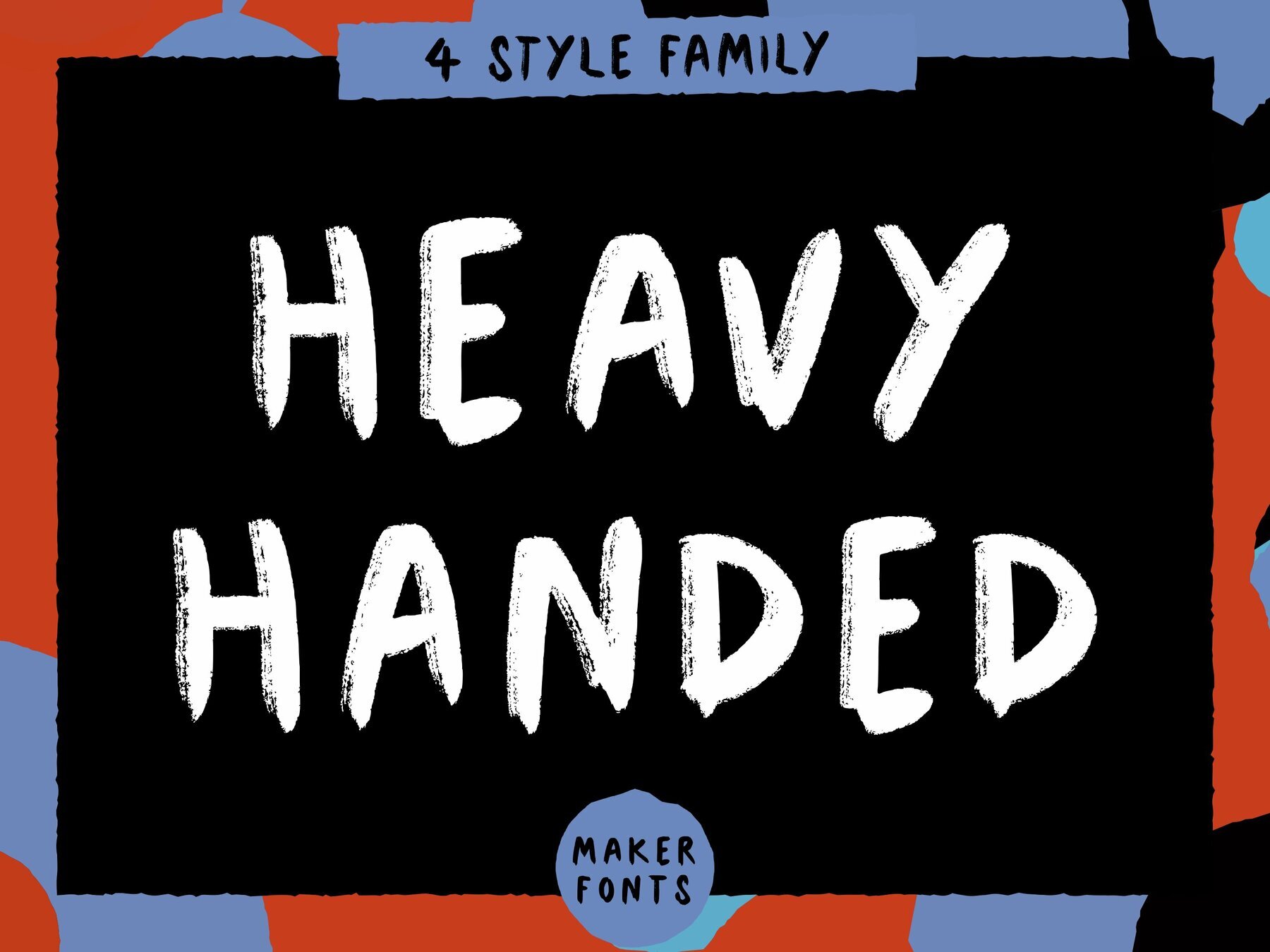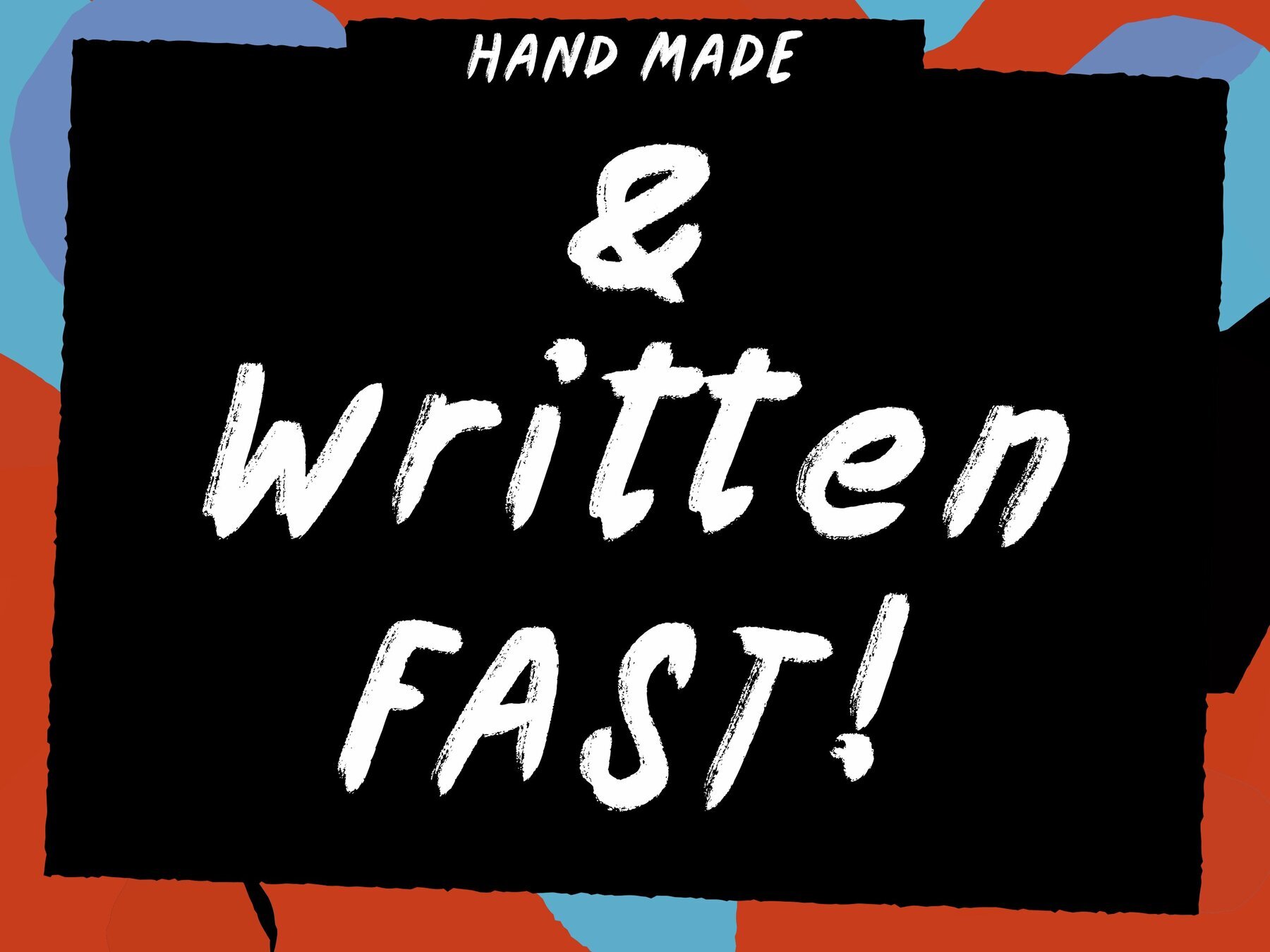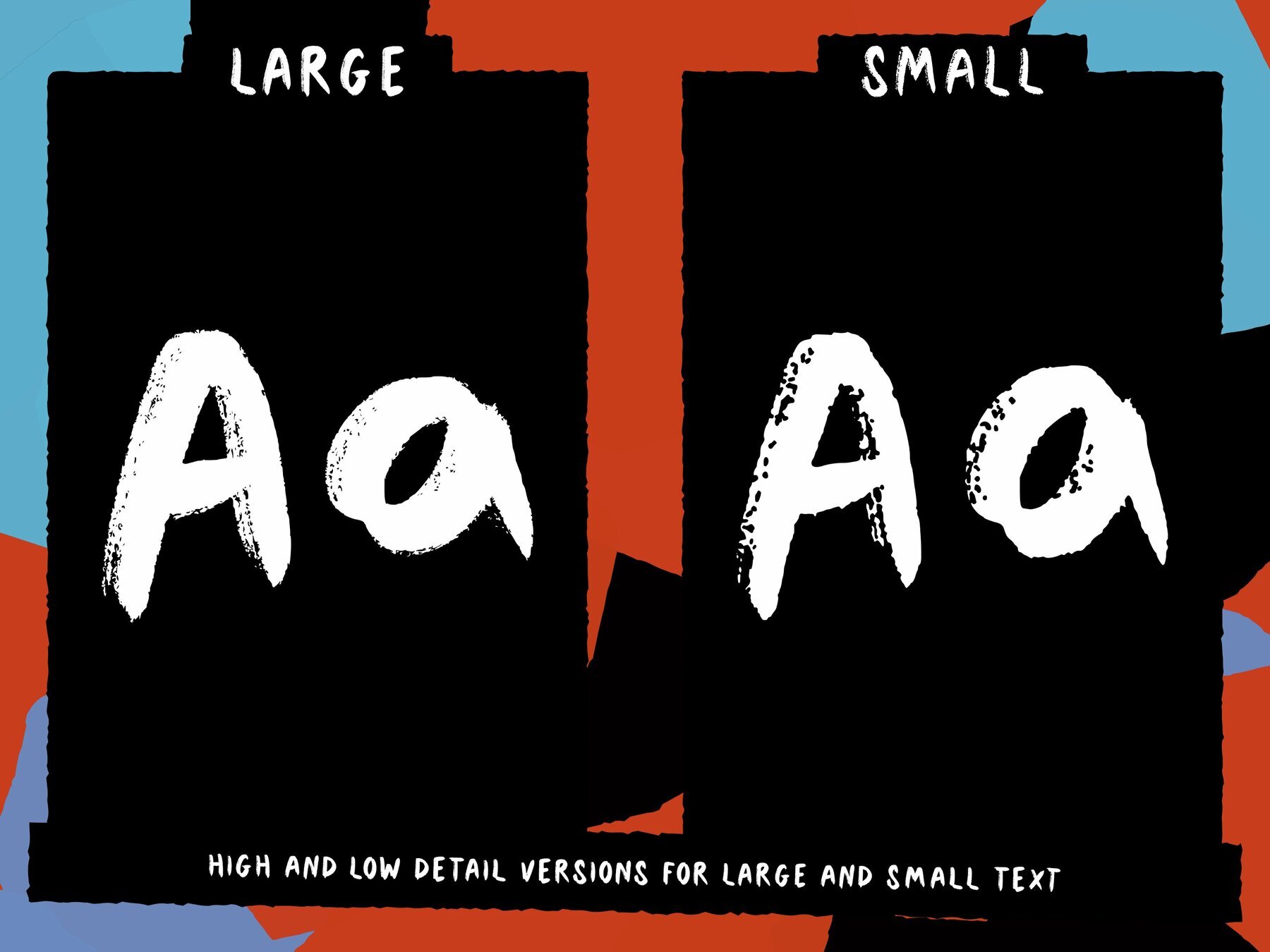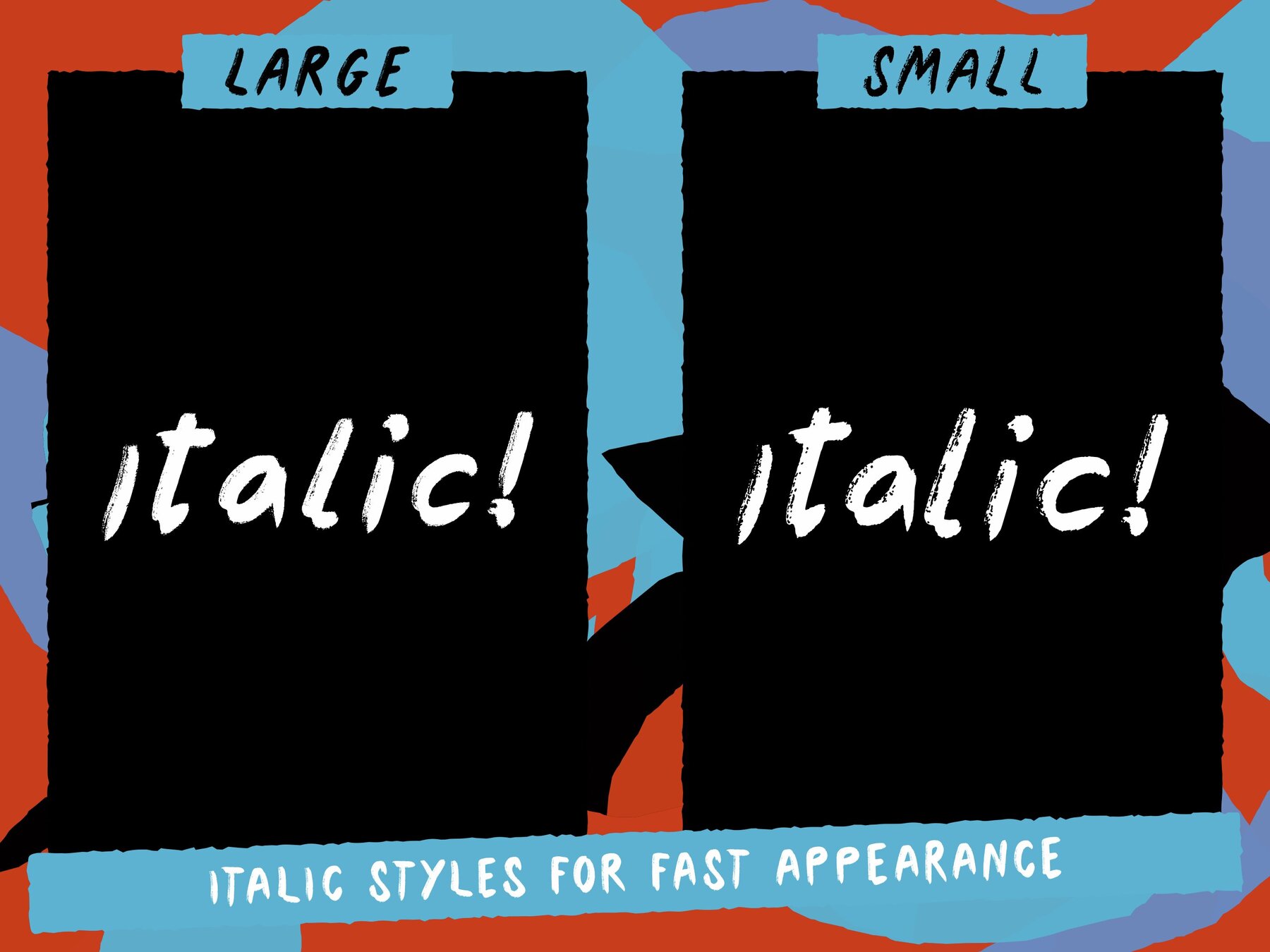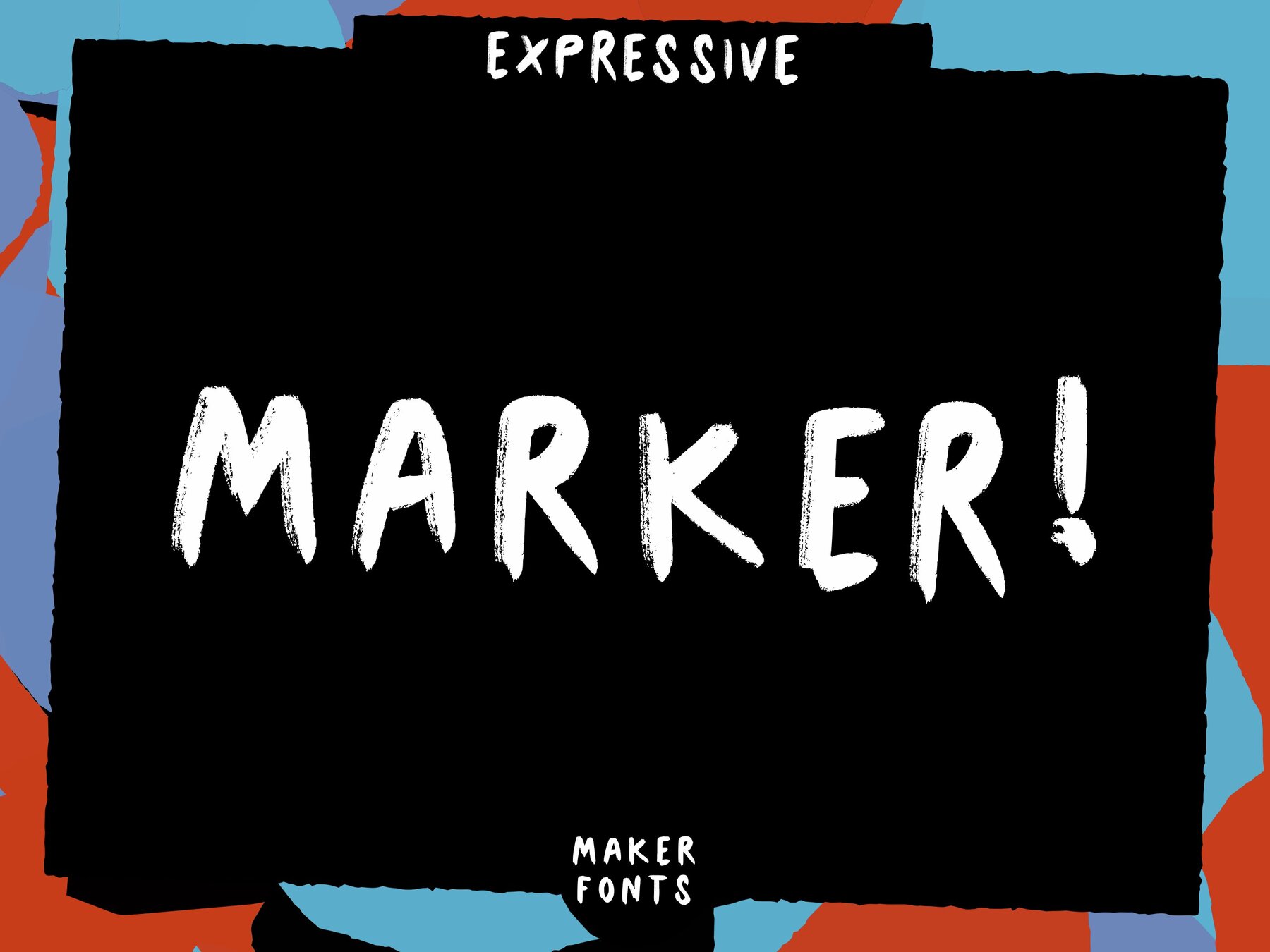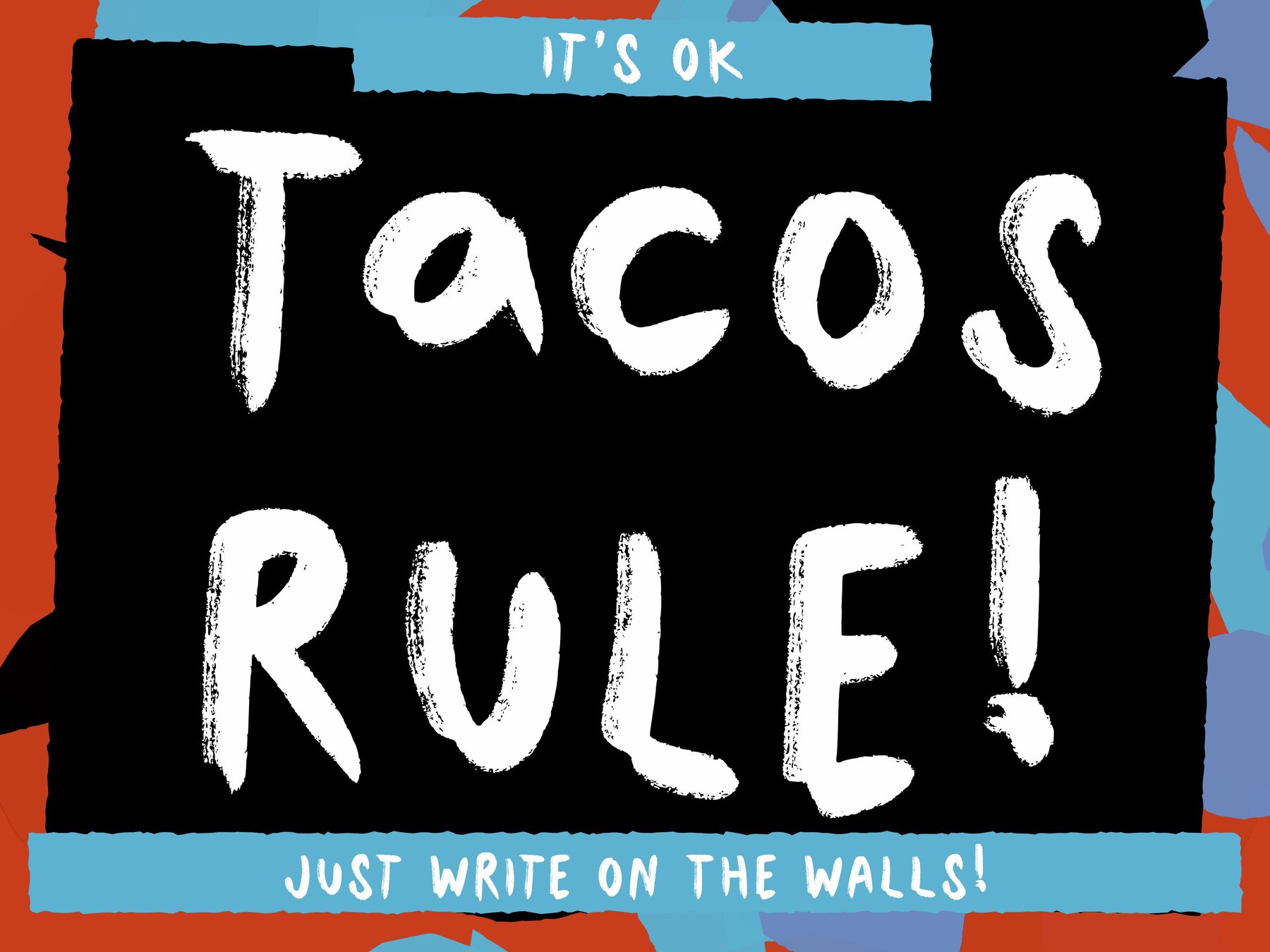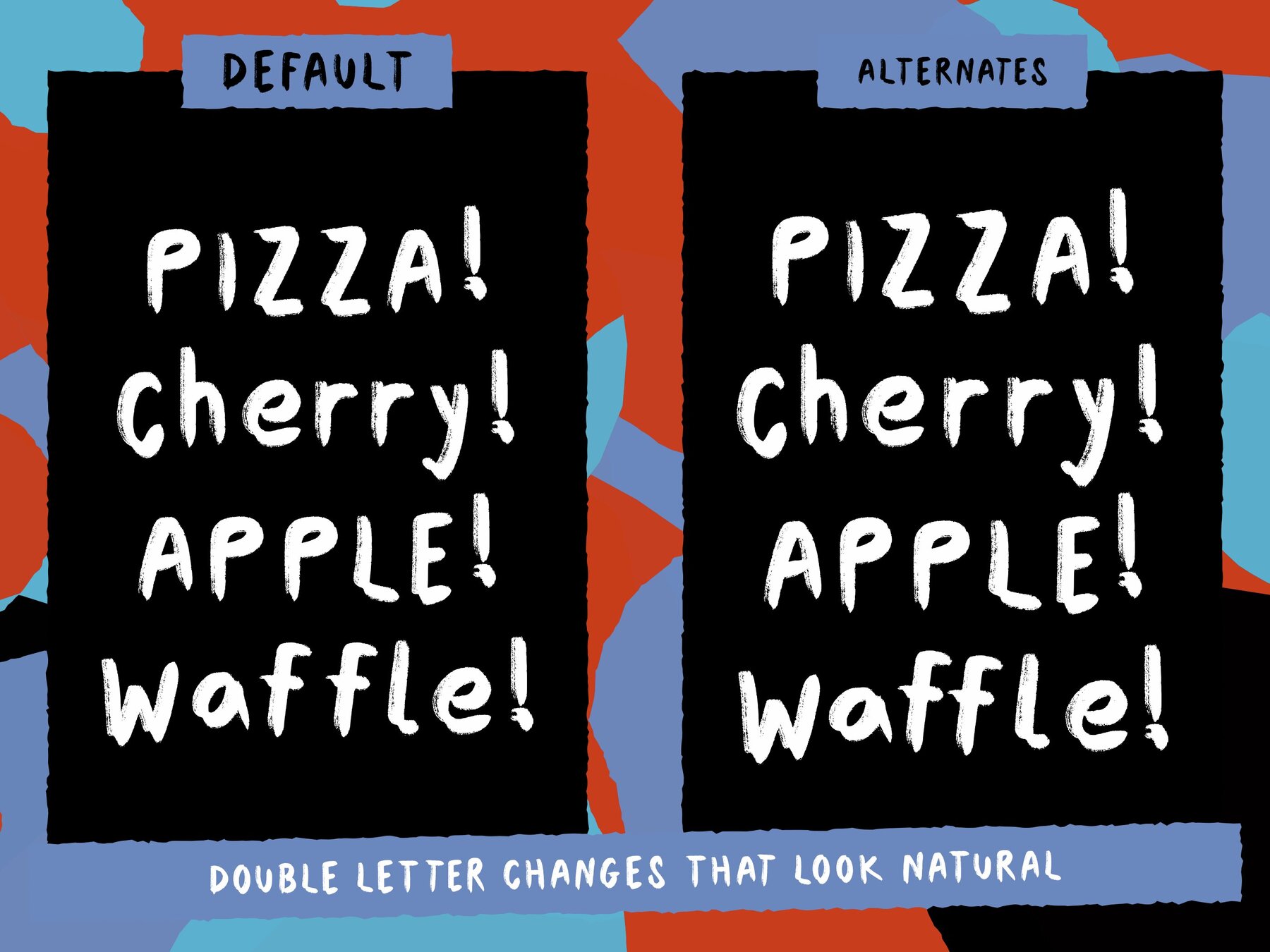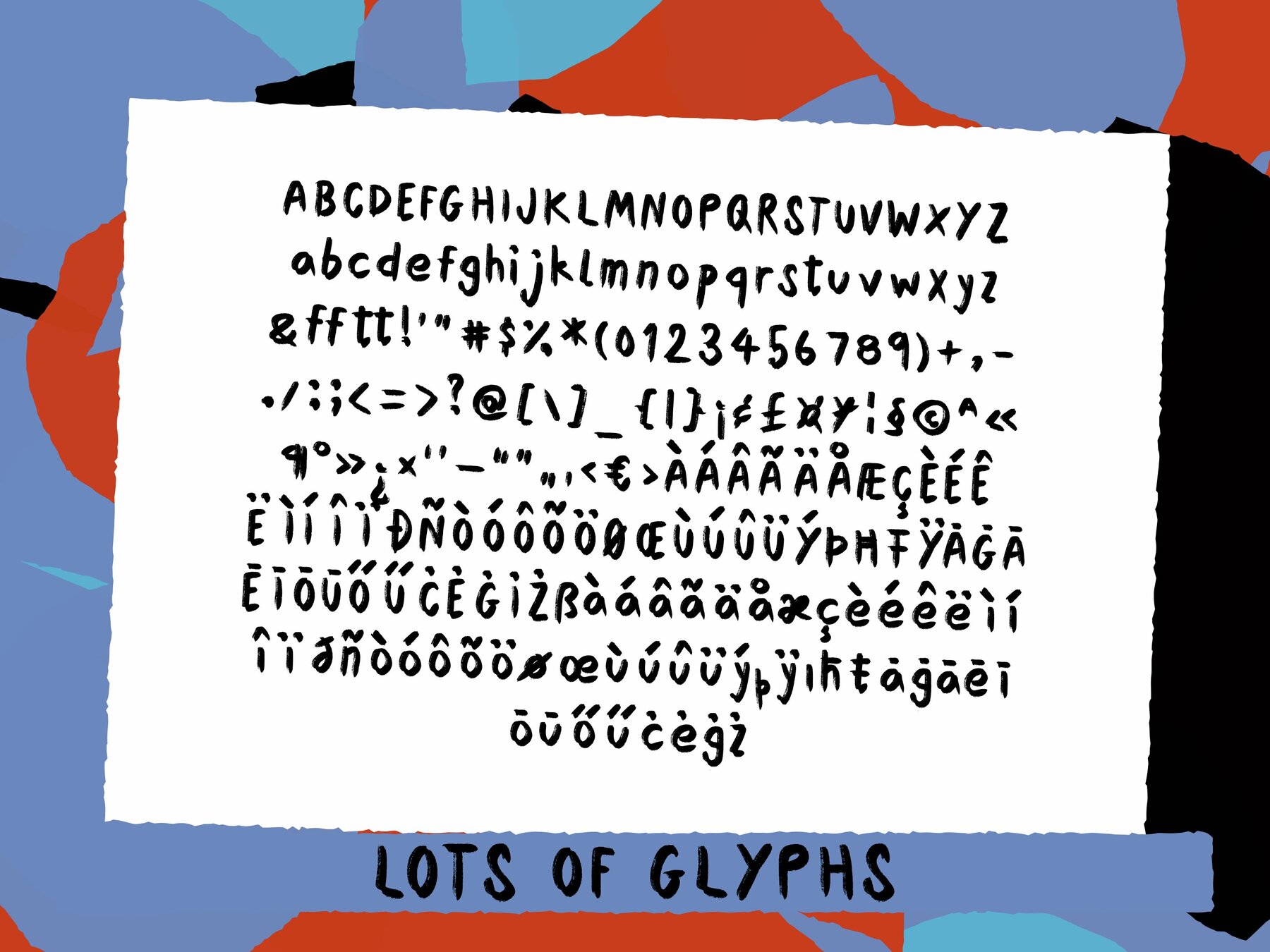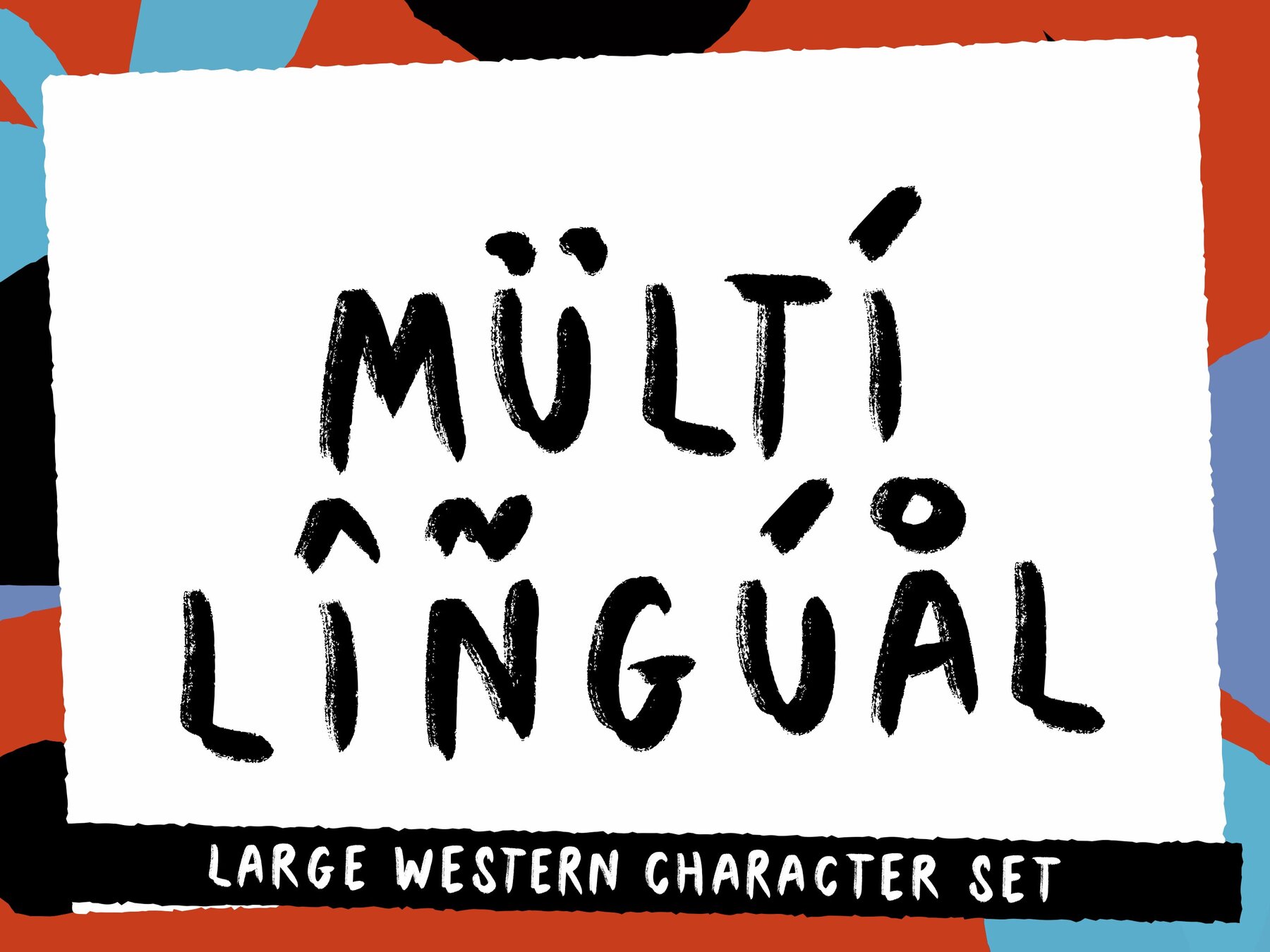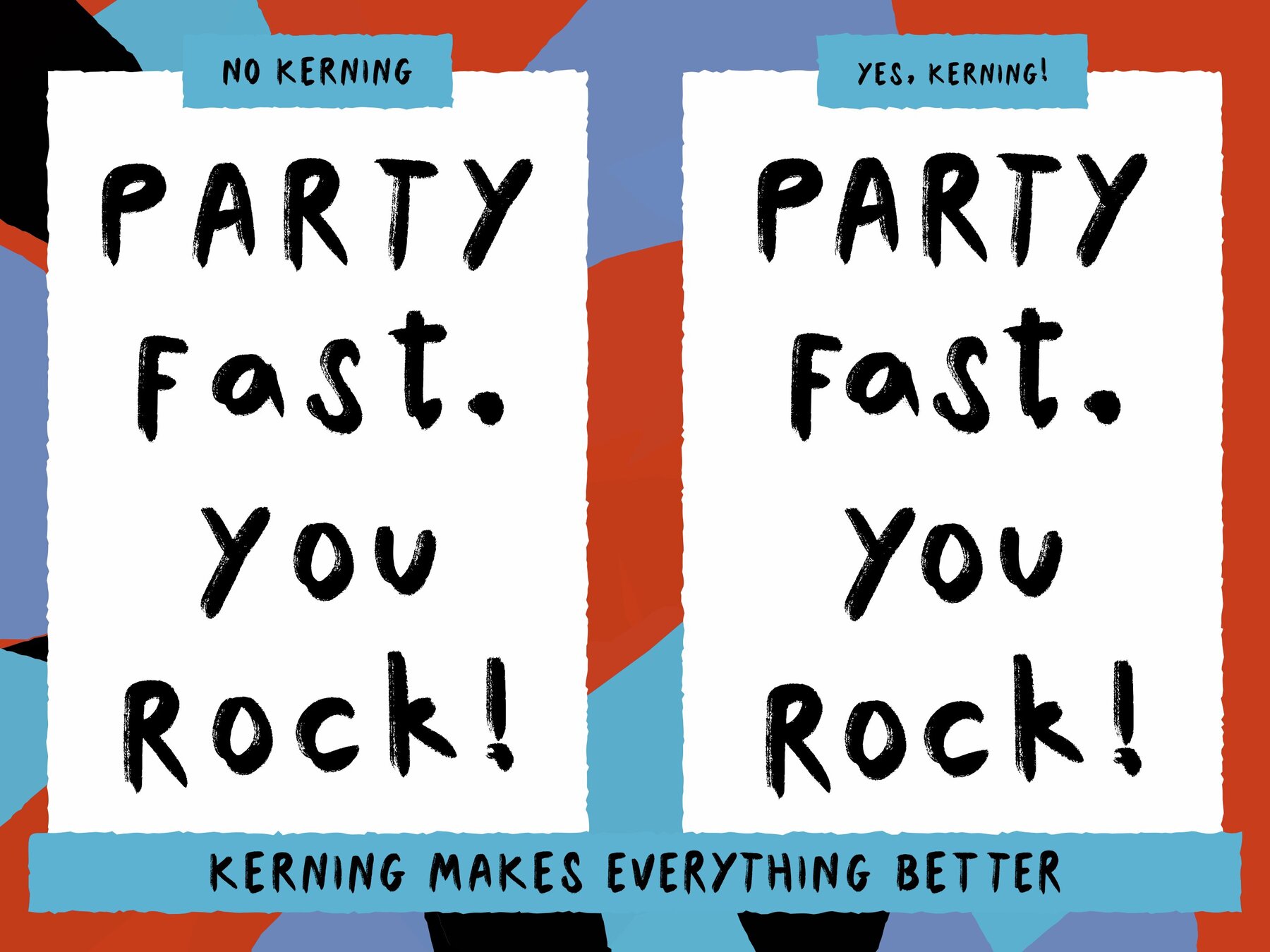
Heavy Handed Font
Heavy Handed by Matthew Robert offers a bold, handmade touch perfect for greetings cards, packaging, and any project needing a personal feel.
- 4 styles: Regular Large, Italic Large, Regular Small, Italic Small
- Large styles: Finer details for large sizes
- Small styles: Coarser details for small sizes
- Comprehensive Western character set
- Numerous glyphs
OpenType features:
- Contextual Alternates
- Stylistic Sets (ss01-ss05)
Create a natural handwritten texture with MF Heavy Handed.